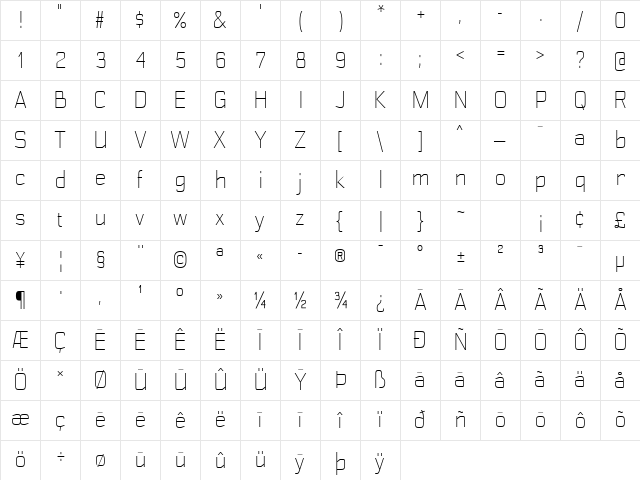
Complete Polyflec Light glyph index. Displaying only characters natively supported by Polyflec Light font.
Polyflec is a composed and adaptable typeface that performs quietly and consistently across a wide range of design contexts. Its slender proportions lend an understated elegance to any composition.